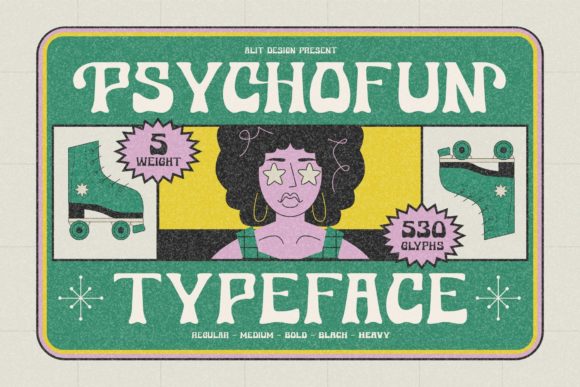
Dive into the world of Psychofun Font, a remarkable display font family that oozes retro charm and chic aesthetics. Unleash your creativity with this typographic gem, meticulously designed by Alit Design.
Psychofun Font is an artistic masterpiece that transcends the ordinary, captivating you with its unique style and versatility. Its meticulously crafted glyphs and swashes dance across the screen, inviting you to explore a realm of endless design possibilities.
This font family is a breath of fresh air, perfect for infusing your projects with a touch of vintage elegance. Its meticulously crafted characters exude a timeless appeal, reminiscent of classic typography. Whether you're a seasoned designer or just starting, Psychofun Font is your gateway to creating designs that resonate.
Step into a world where your designs take center stage, commanding attention with their distinct personality. Psychofun Font is a versatile chameleon, effortlessly adapting to various projects. From blog posts and logos to branding, ads, invitations, greeting cards, planners, photo albums, and decorations, this font knows no bounds.